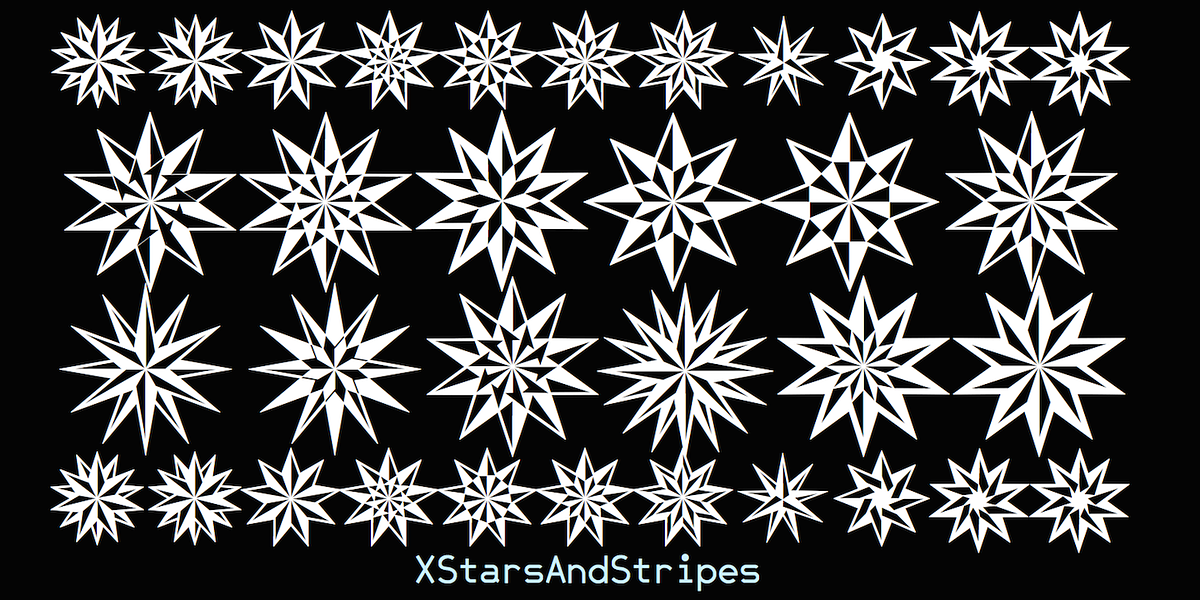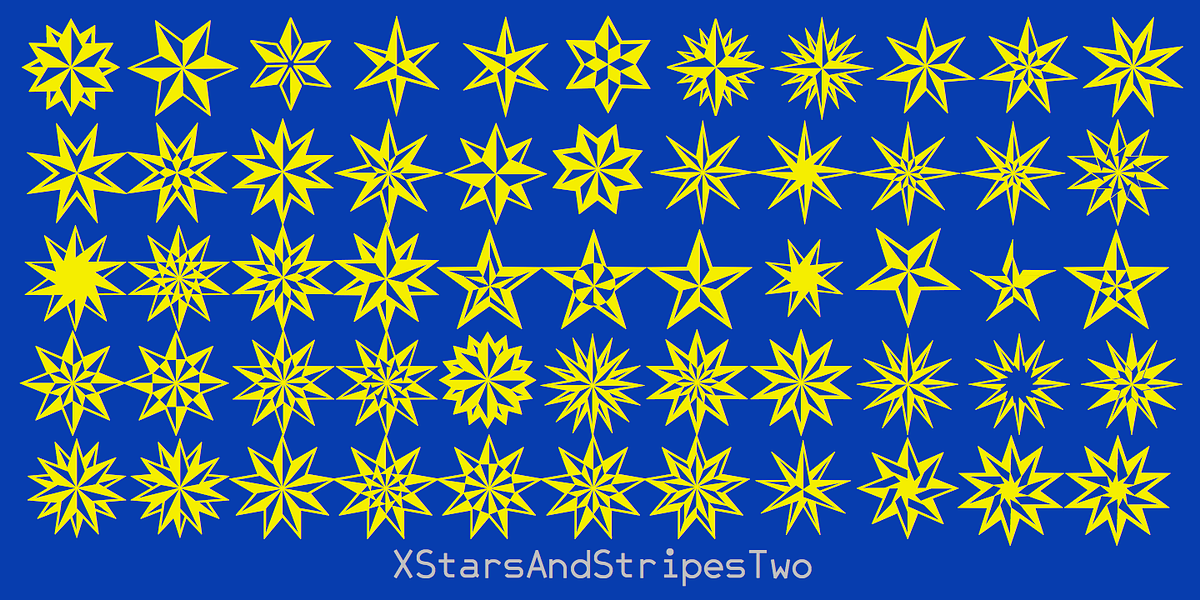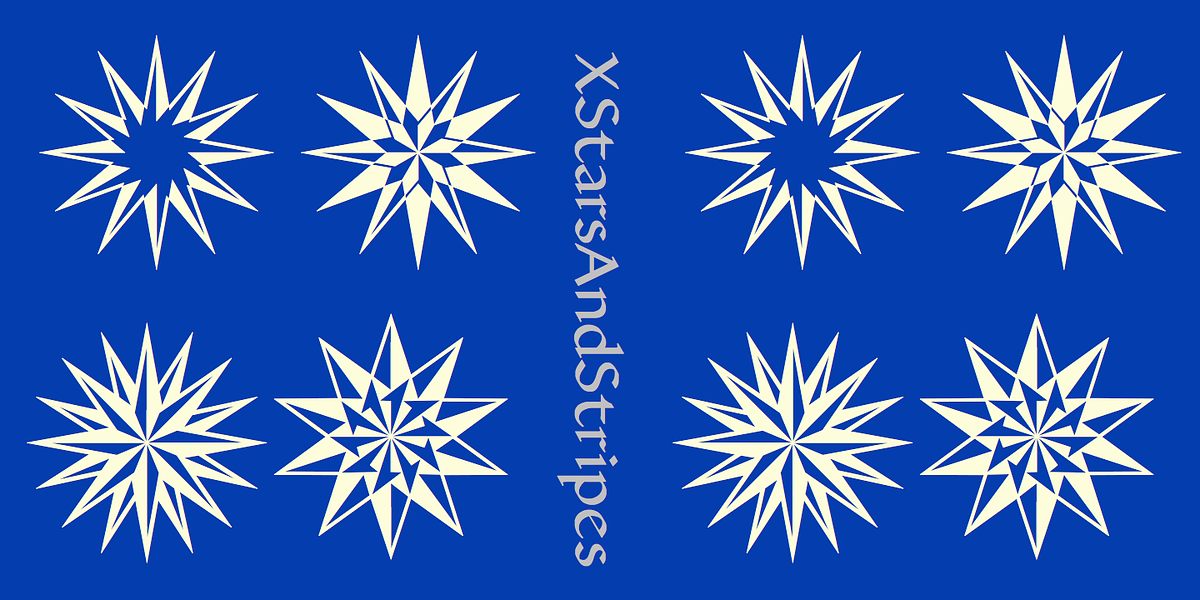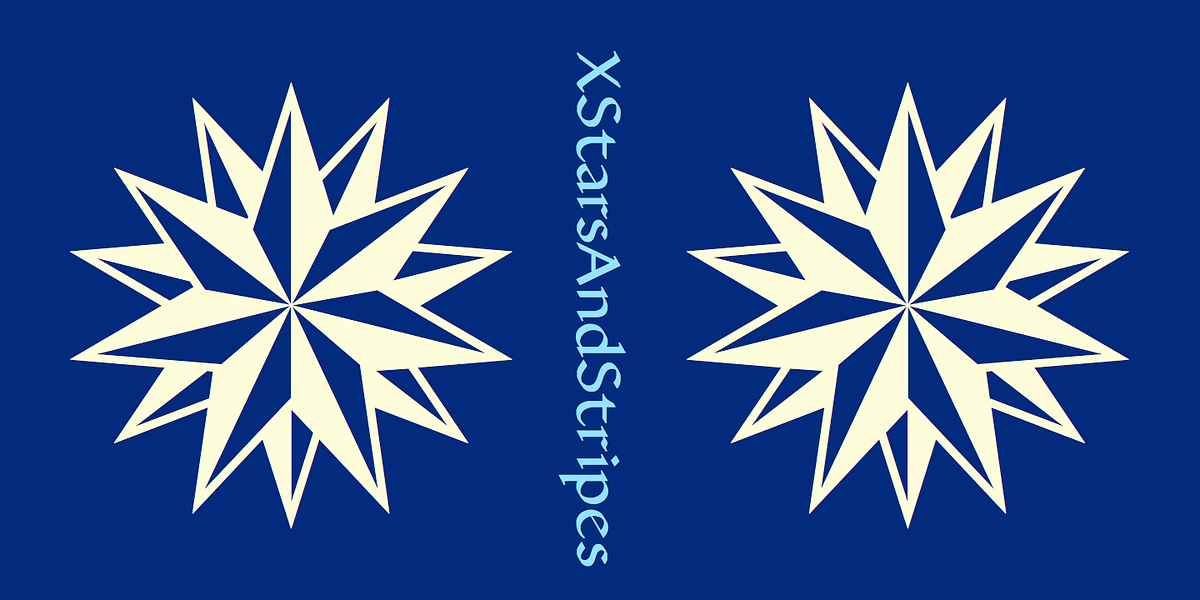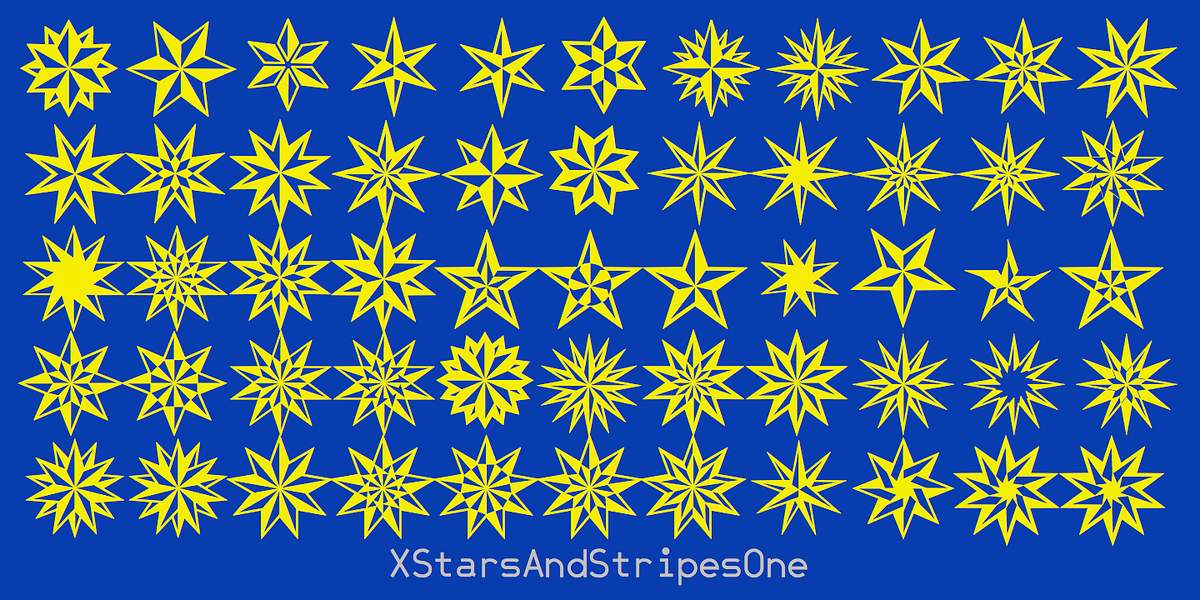
XStarsAndStripes
XStarsAndStripesOne and XStarsAndStripesTwo are dingbat fonts designed specifically for visual decoration. They feature elaborate star patterns, with each font being a mirror image of the other. These fonts would be ideal for use in illustrations, design elements, or any project requiring unique and eye-catching symbols.